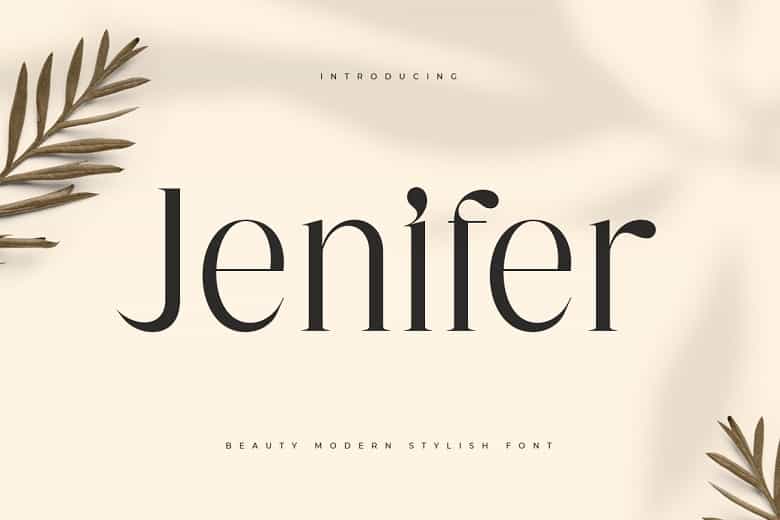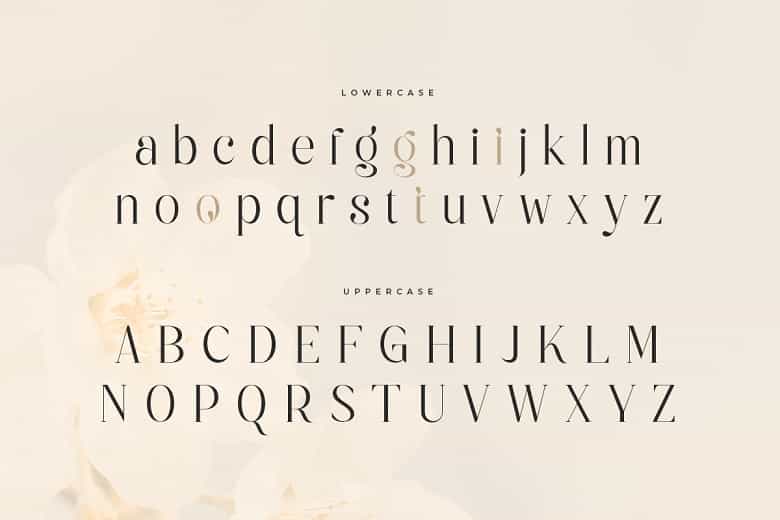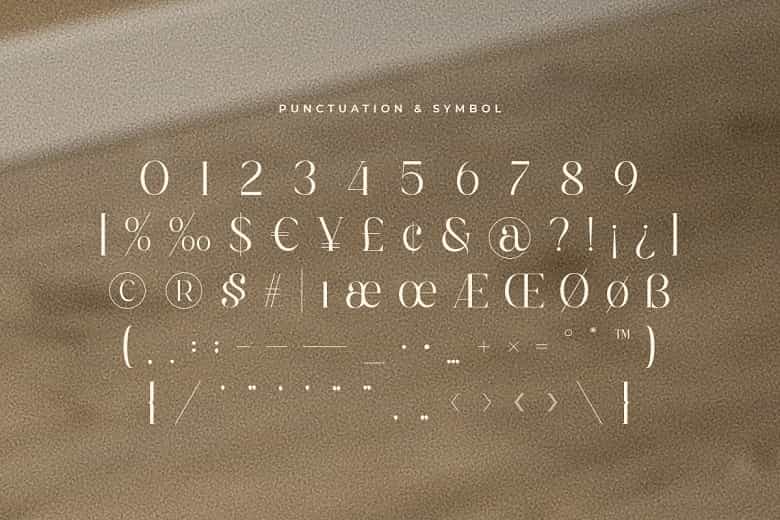
Jenifer is a beauty modern stylish serif font with distinctive individual characters and fantastic set of discretionary characters to enhance the worth of your business. It is very useful to share to the designer or product owner who needs style solutions to make their design more elegant and up to date.